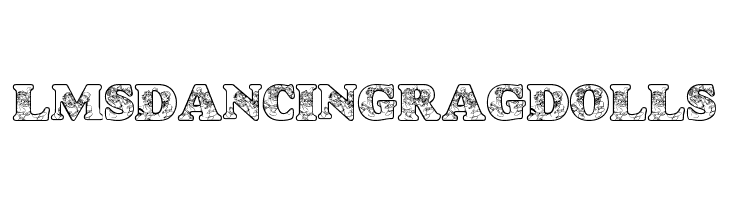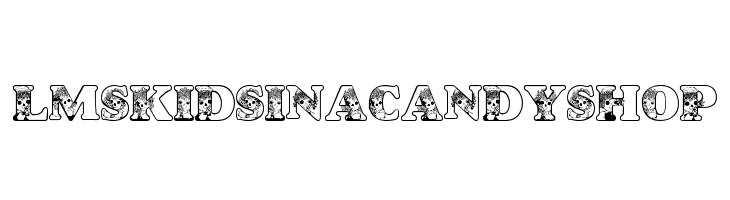
( LJ Design Studios - www.ljdesignstudios.com )
A bold, geometric font with intricate patterns and high contrast.
( LJ Design Studios - www.ljdesignstudios.com )
A bold, decorative font with angular shapes and intricate cut-out patterns.
( LJ Design Studios - www.ljdesignstudios.com )
A decorative font with geometric shapes and intricate patterns.
( LJDS - ljdesignstudios.es.tl )
A modern, geometric font with bold lines and intricate patterns.
( London's Letters - www.londonsletters.com/ )
A whimsical, decorative font with intricate patterns and playful illustrations.
( London's Letters - www.londonsletters.com/ )
A bold, decorative font with floral patterns integrated into each character.
( London's Letters - www.londonsletters.com/ )
A playful, decorative font with intricate patterns inside bold letters.
( London's Letters - www.londonsletters.com/ )
A decorative font with intricate patterns and bold, whimsical design.
( London's Letters - www.londonsletters.com/ )
A bold, decorative font with abstract, flame-like patterns within each character.
( London's Letters - www.londonsletters.com/ )
A playful, decorative font with colorful, rainbow-like patterns and a whimsical style.